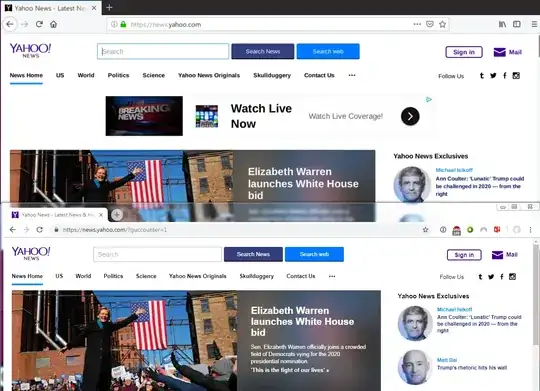
Is there any way to make Ubuntu fonts sharper and less blurry, like in Windows?
The attached screenshot shows the same page in Firefox in Windows and Ubuntu one looks much more blurred and unclear (at least, for me).
Everything else works great in Ubuntu and I am very pleased with it, the only issue I have is the font and/or rendering.
I am currently using default Firefox fonts in both systems and Segoe UI as a default font in Ubuntu.
Could you please what can I do to make Ubuntu fonts look like Windows (the same sharpness, rendering, etc)? Thanks.